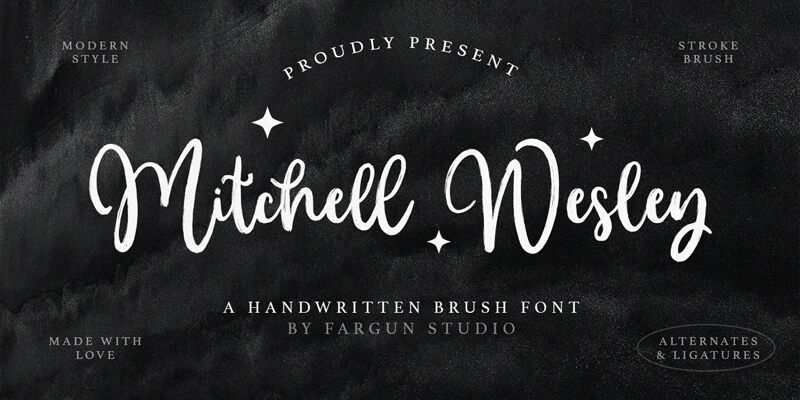
Mitchell Wesley font by Fargun Studio brings a charming handwritten style to your design projects. With its flowing, elegant curves and artistic flair, this font captures attention with every letter. It features a bold presence while maintaining an inviting and whimsical aesthetic.
Perfect for adding a personal touch, the Mitchell Wesley font is ideal for invitations, logos, branding materials, and social media graphics. Its distinctive style ensures your text stands out while conveying warmth and creativity.
Mitchell Wesley